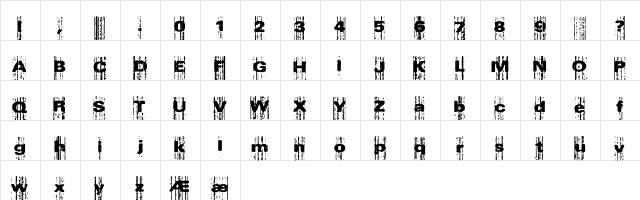
Xerox Malfunction (BRK) Regular Font Preview
Xerox Malfunction (BRK) Regular
Design Context for Xerox Malfunction (BRK) Typeface
Xerox Malfunction (BRK) has an approachable, lighthearted character — its loose, expressive forms are well-suited to children's content, casual branding, and fun-first design.
Font Pairing: Pairs well with a rounded or humanist sans for body copy, maintaining the friendly tone without relying on Xerox Malfunction (BRK) to carry extended reading.
Pro Tip: Avoid using Xerox Malfunction (BRK) for long passages of text — it works best for headlines, labels, and short calls to action.